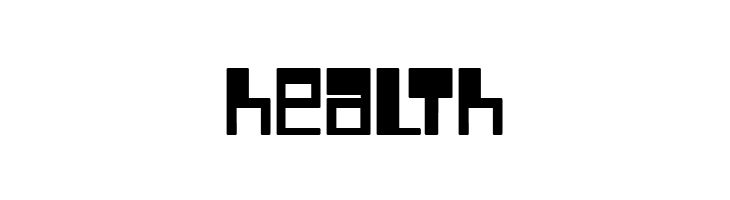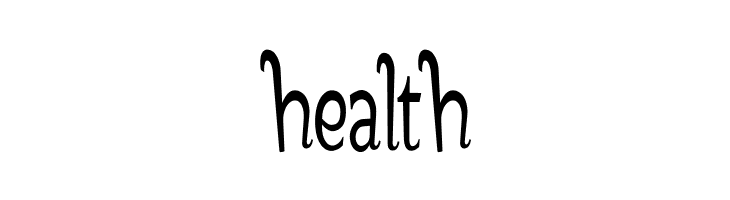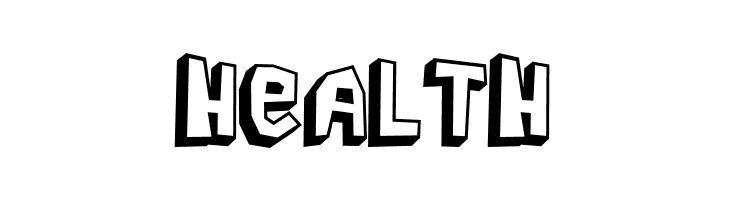
A futuristic, geometric font with rounded corners and uniform stroke width.
A classic serif font with high contrast and elegant design.
A modern sans-serif font with clean lines and balanced spacing.
A bold, modern sans-serif font with clean lines and a slightly condensed style.
A bold, geometric font with clean lines and modern style.
A bold, modern font with strong, clear characters.
A bold, high-contrast serif font with wide uppercase letters and elegant serifs.
A clean, modern typeface with uniform stroke width and excellent readability.
Bold serif font with strong, classic characters.
A bold, wide serif font with sharp serifs and high contrast strokes.
Elegant serif font with an italic slant and moderate stroke contrast.
A geometric, modern font with clean lines and a minimalist design.
A bold, modern sans-serif font with clean lines and balanced spacing.
A narrow, elegant serif font with high contrast and sharp serifs.
A distressed, typewriter-style font with a grunge, vintage look.
A geometric, modern font with a futuristic and structured design.
A bold, geometric font with a modern, angular design.
A geometric, grid-patterned font with bold lines and diagonal stripes for a modern look.
A sleek, modern font with thin lines and a minimalist design.
A thin, elegant italic font with a modern and sophisticated style.
A modern, italicized font with clean lines and a sleek design.
A dynamic, thin italic font with a modern calligraphic style.
A bold, angular font with a calligraphic and graffiti-inspired style.
A bold, italicized font with sharp, angular lines and a dynamic style.
A dynamic, italic font with sharp, angular strokes and a modern edge.
A dynamic, calligraphic font with sharp, angular strokes and high contrast.
A bold, brush-stroke inspired font with a calligraphic flair.
A bold, 3D hand-drawn font with a rugged and playful style.